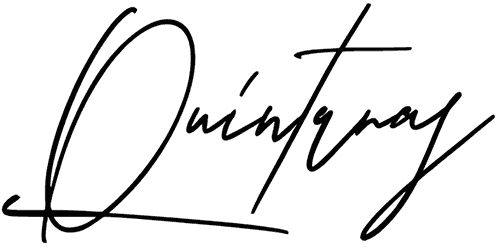
Quintaras Font
Are you ready to bring your creativity to life? Here is our modern handwritten font Quintaras, a monoline, cursive display with signature style, a really good choice for adding a professional look to your design.
It comes with a complete set of elegant characters, but make sure before, because it’s illegible. This signature font is perfectly qualified for watermarks, taglines, photography, book covers, and branding aims.